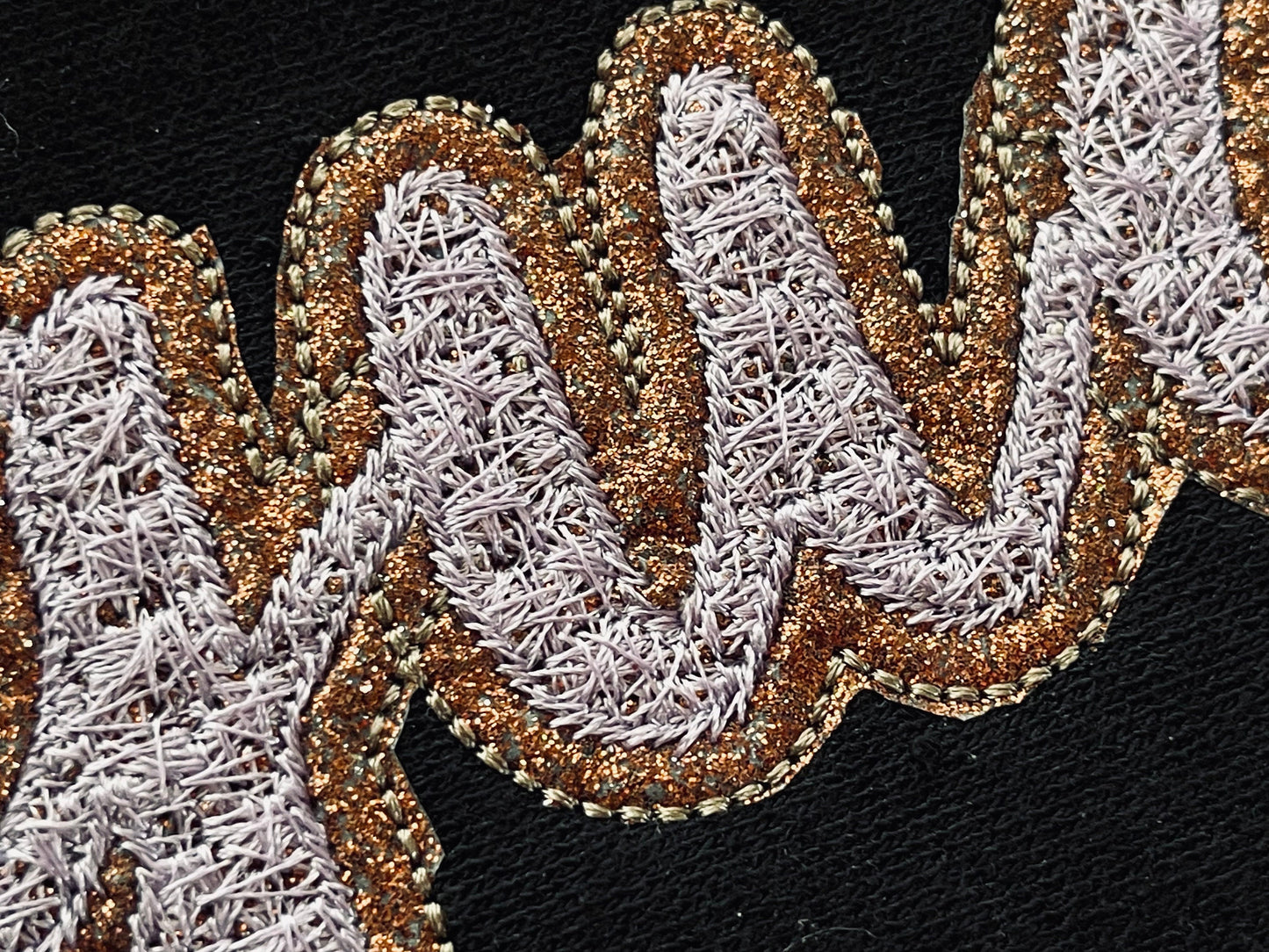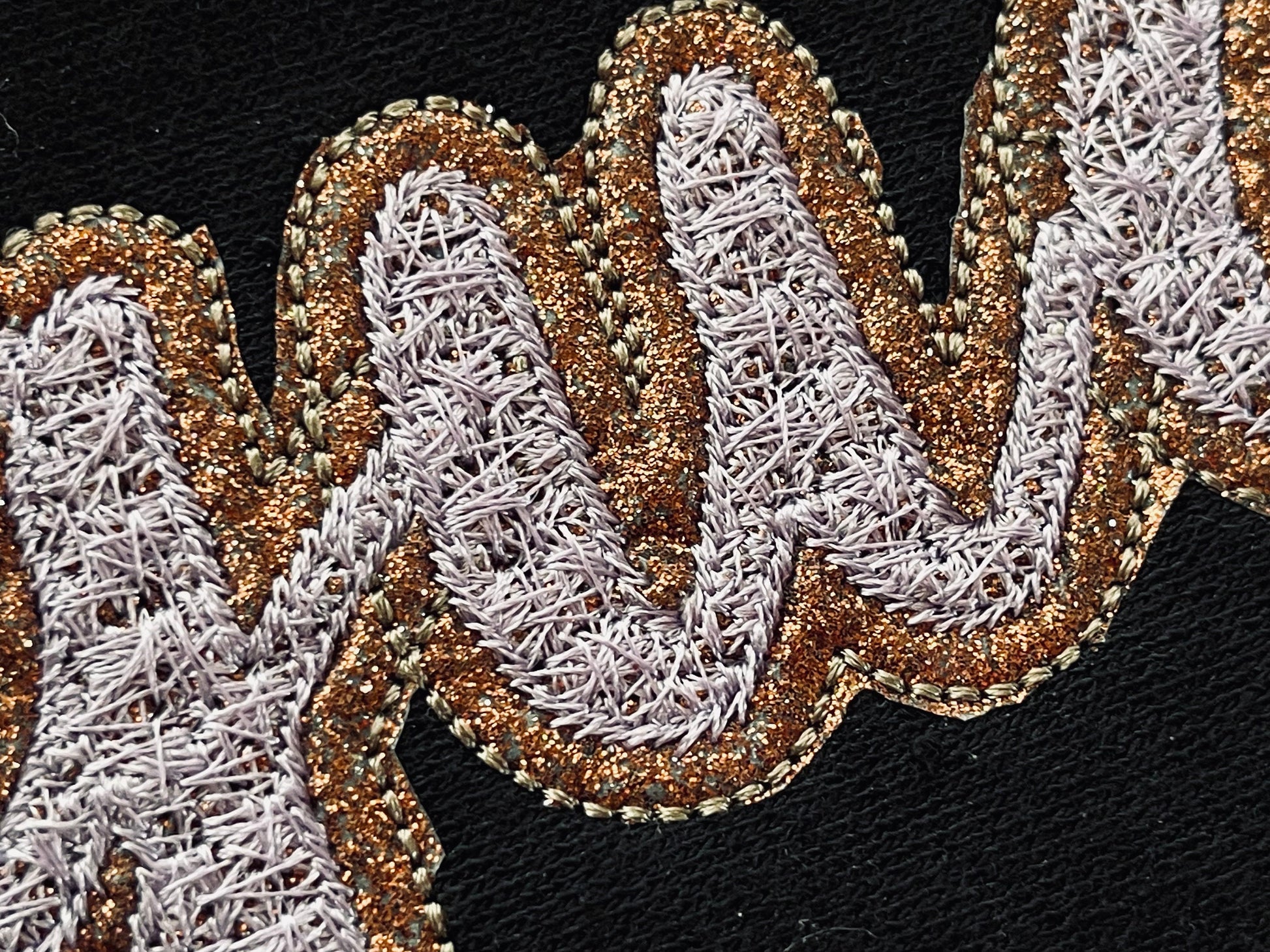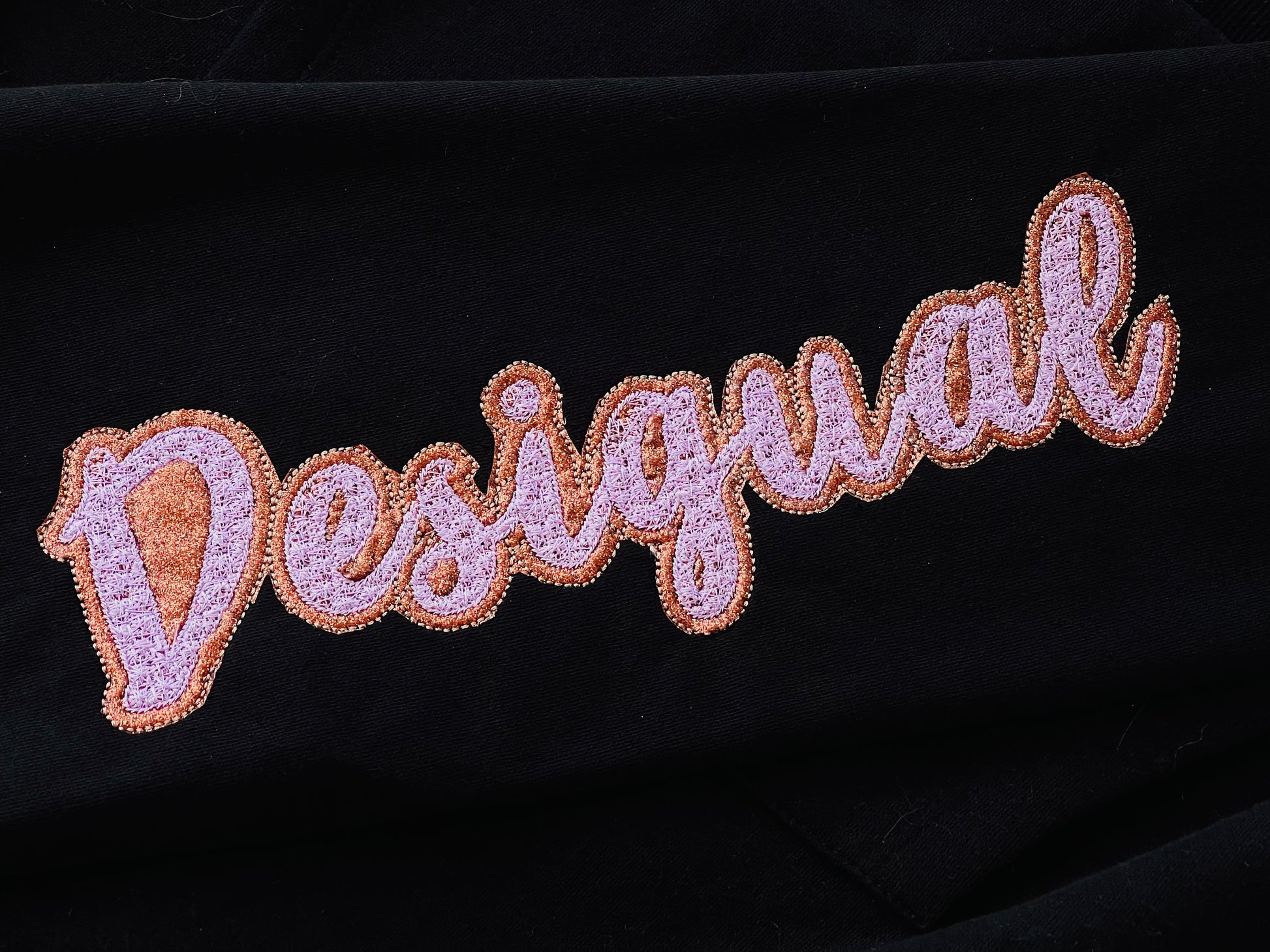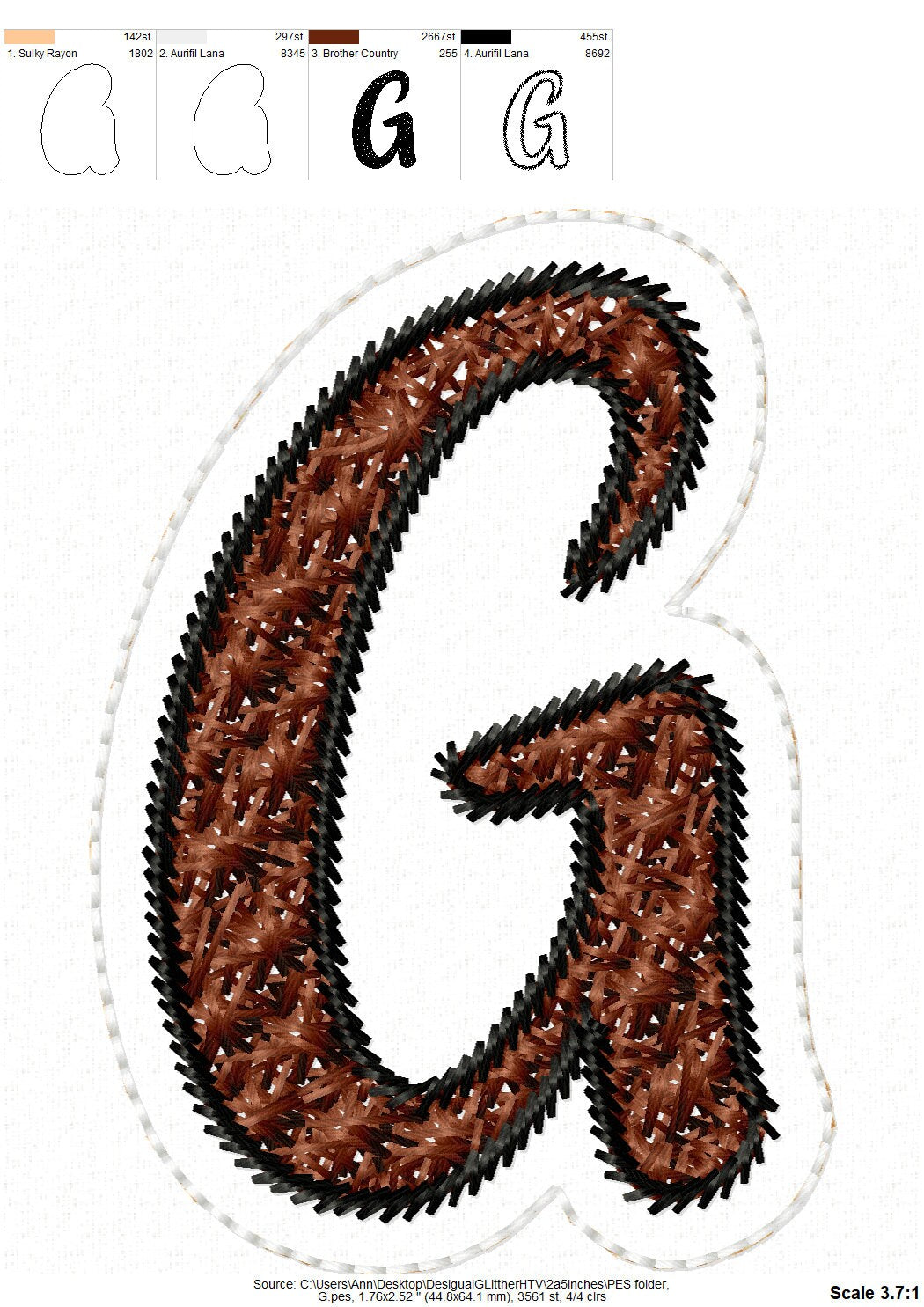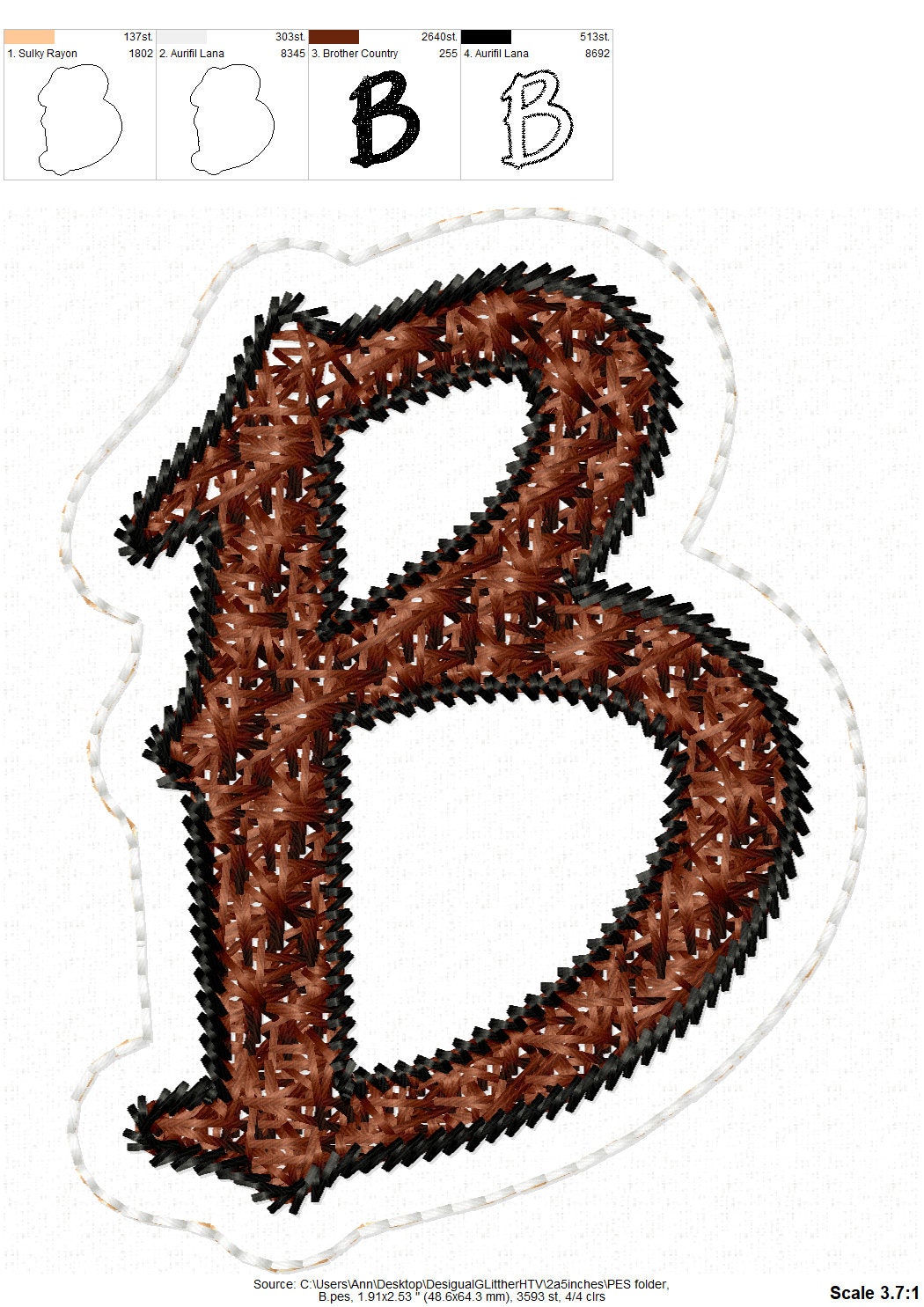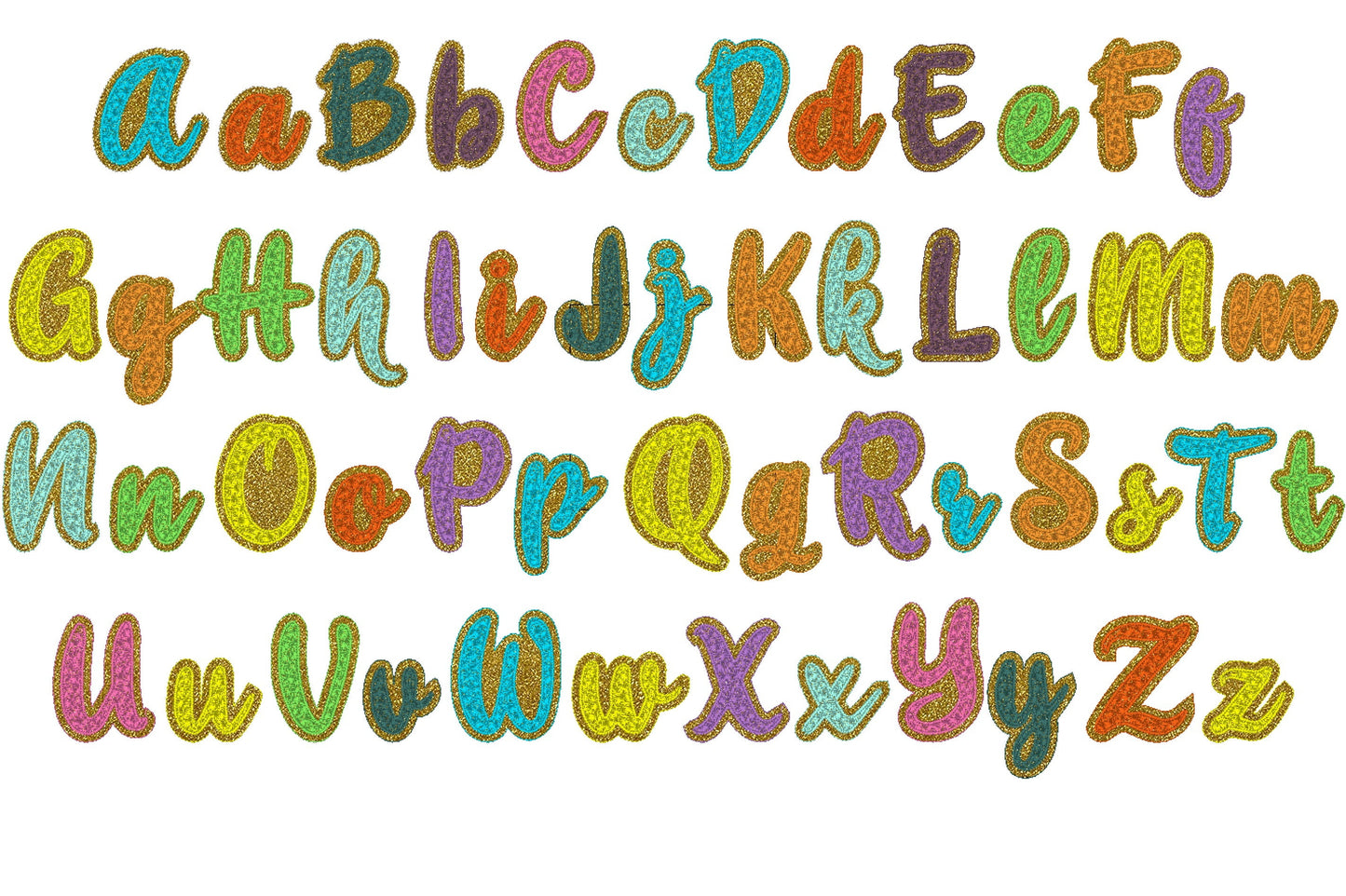
Or click to open the linkA handwritten faux chenille font in two layers for glitter vinyl, for names and words on shirts, sweatshirts and bags.
Uppercase and lowercase letters and numbers 0 to 9 in six sizes: 1.2, 1.4, 2, 2.5, 3 and 3.5 inches. When letters join, the lines overlap; this does not show when stitched with glitter vinyl or glitter faux leather.